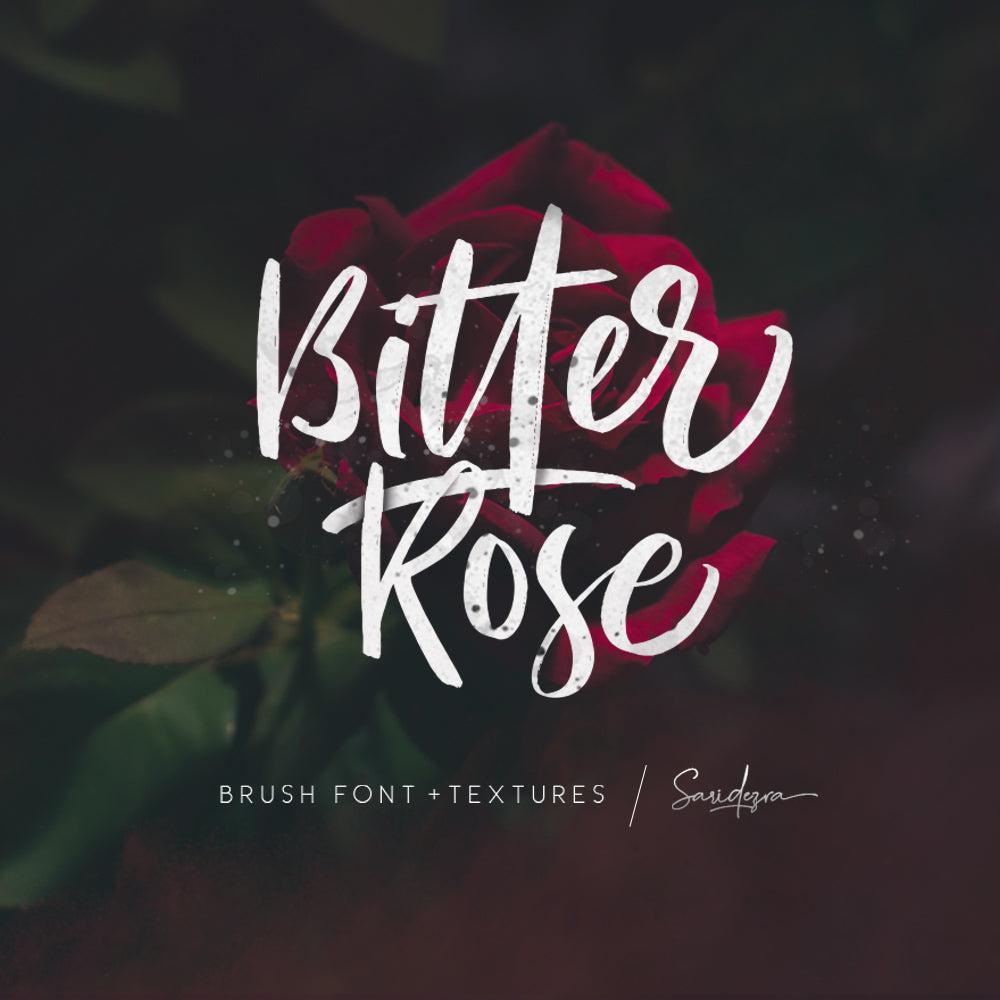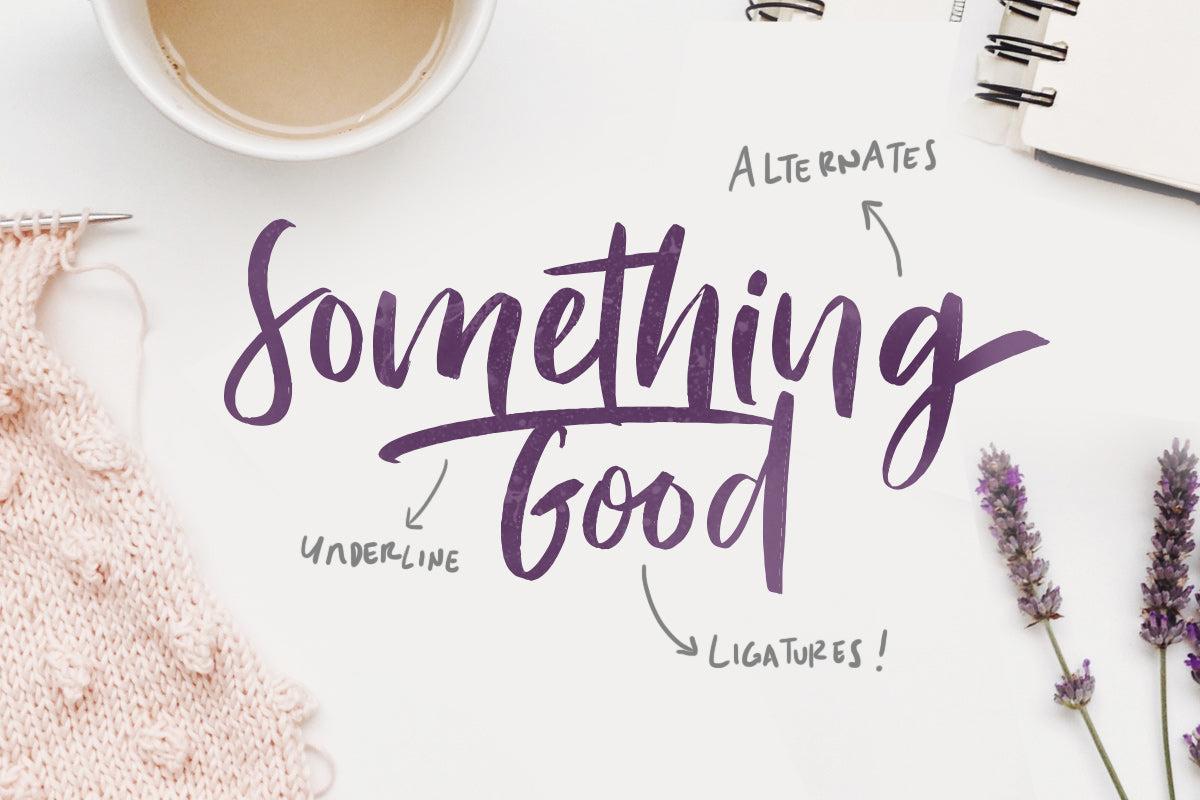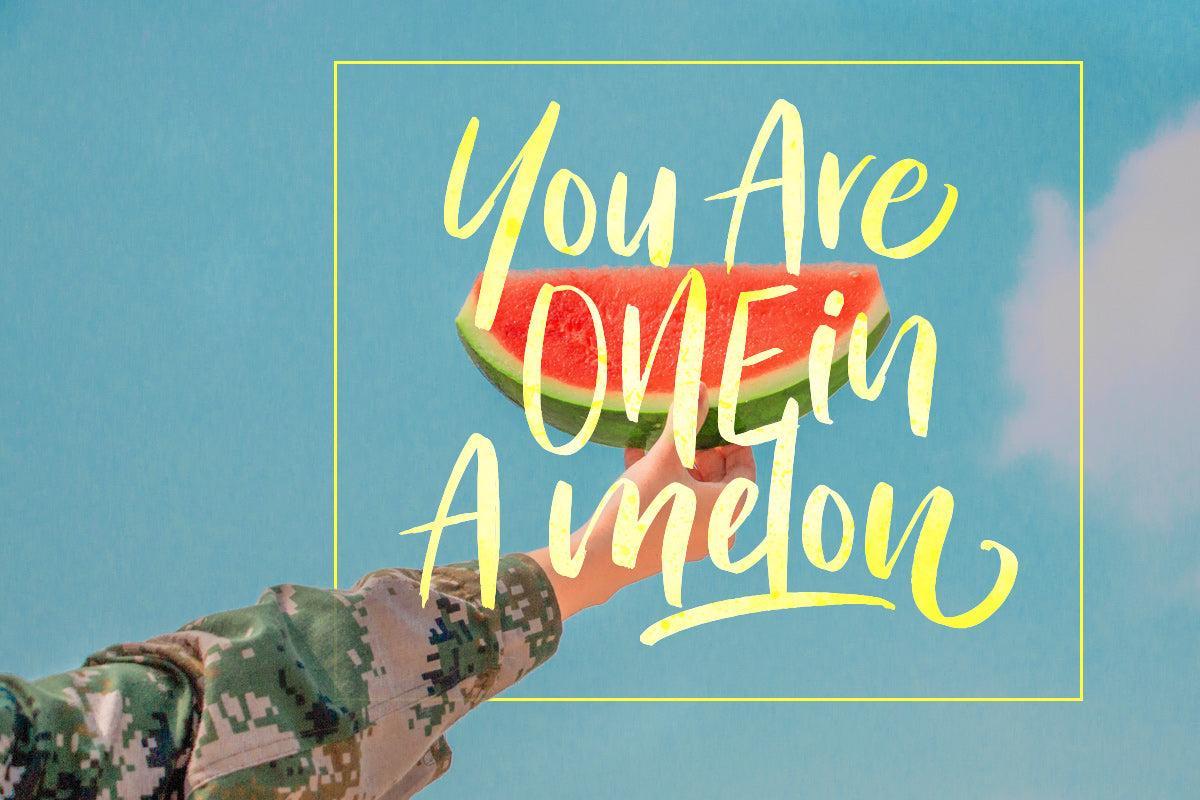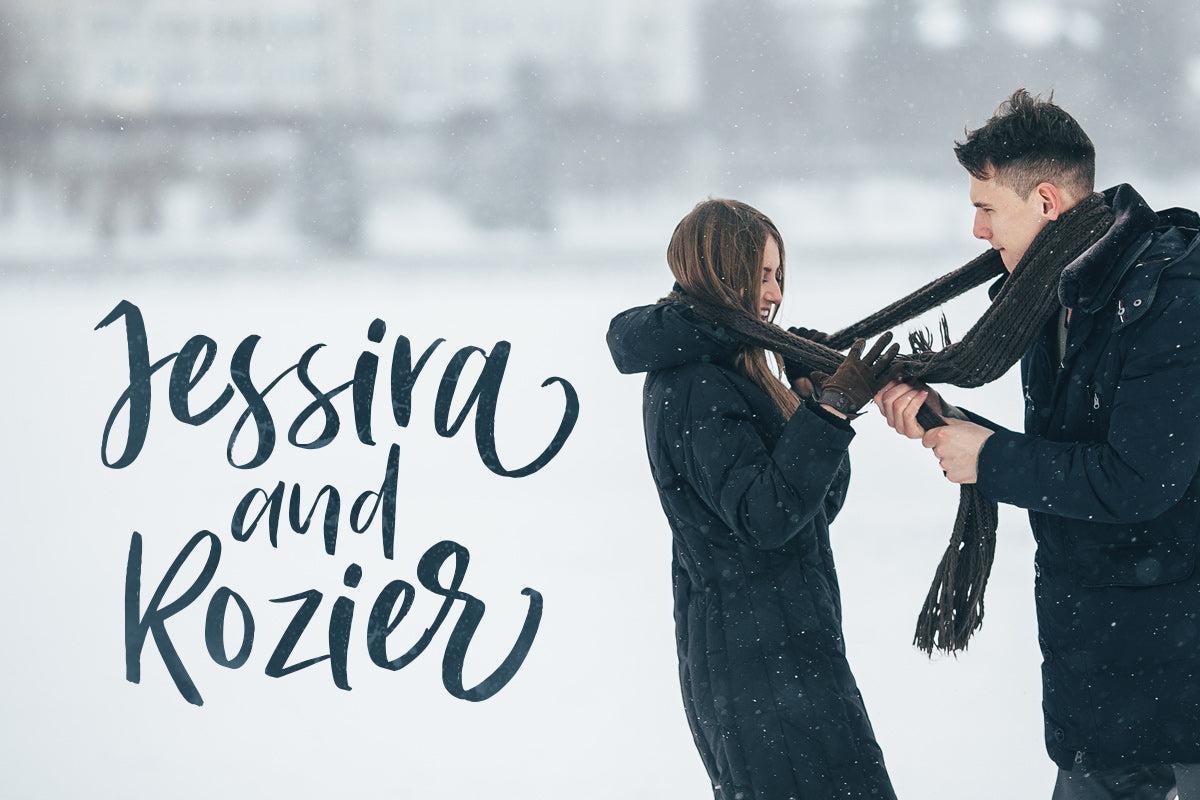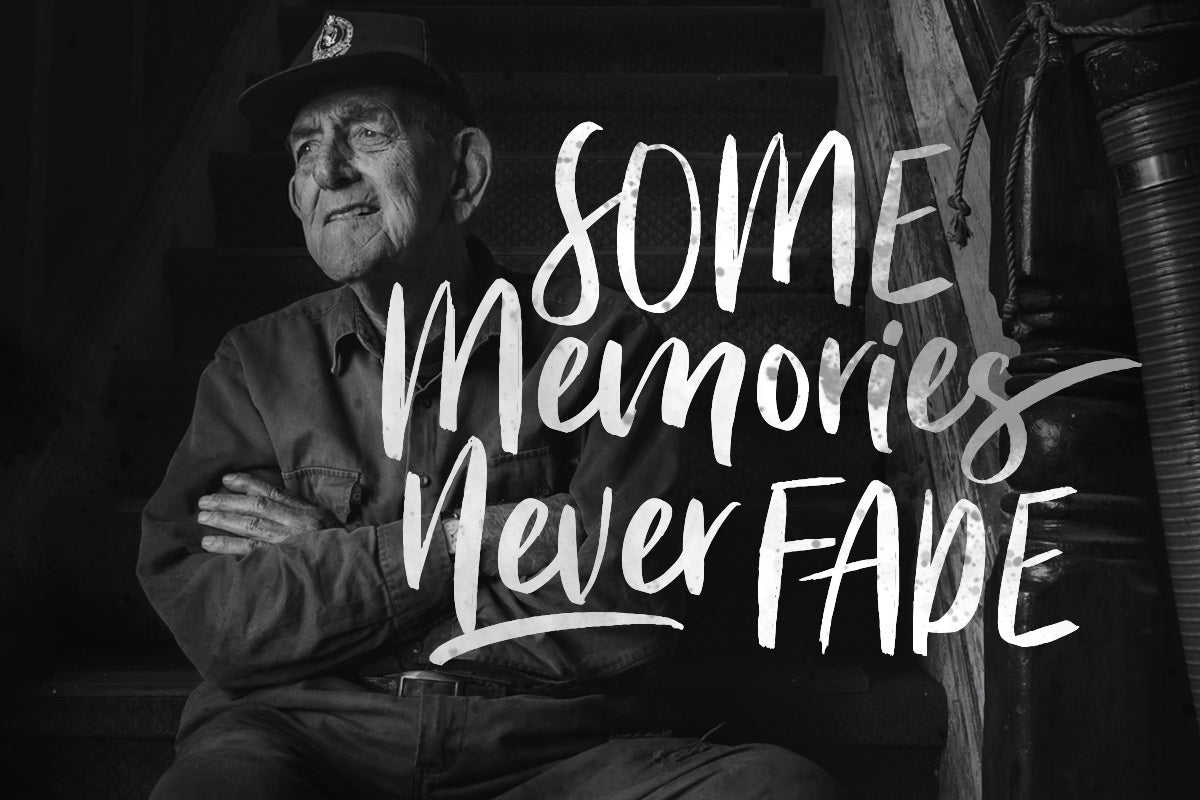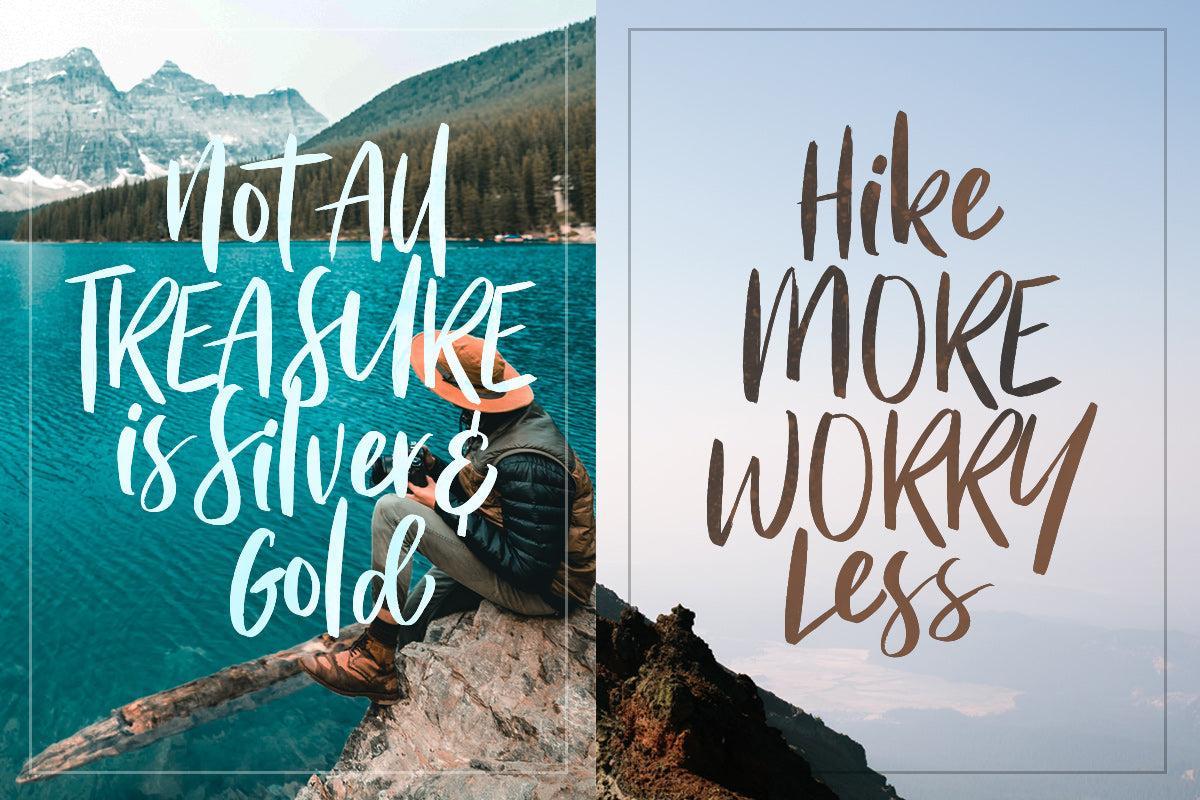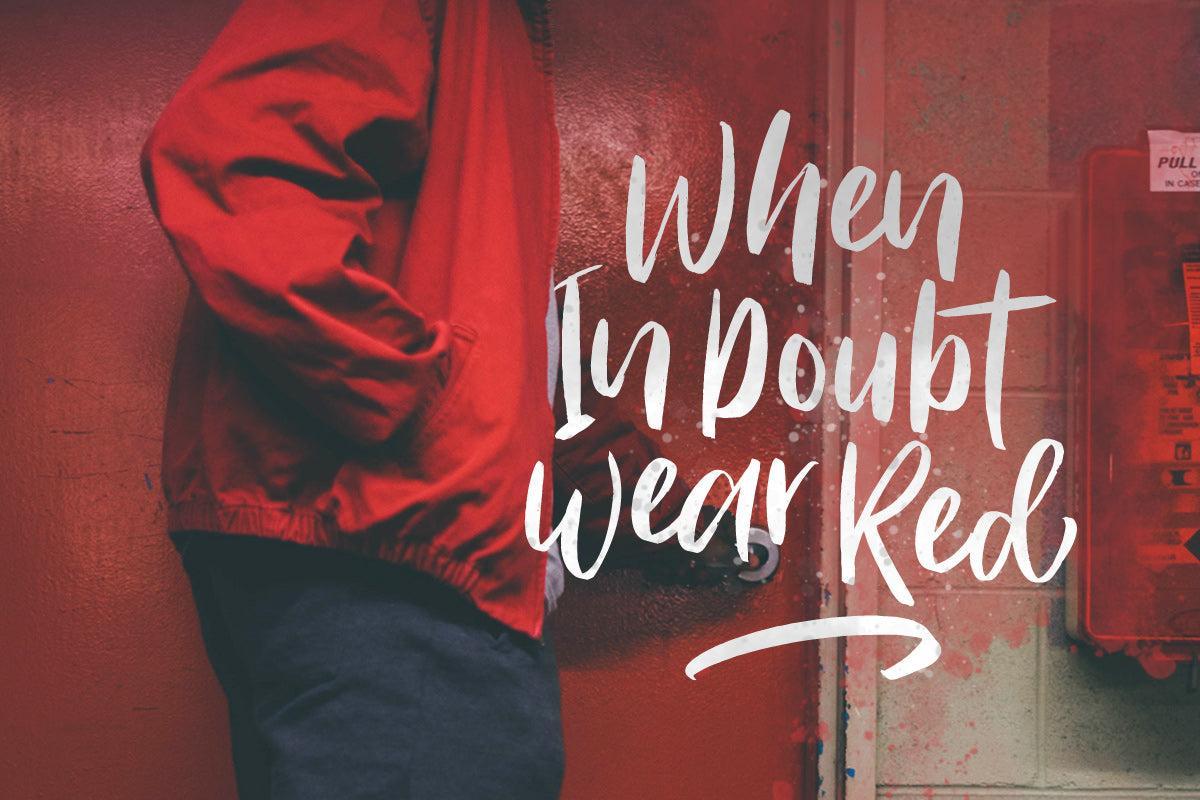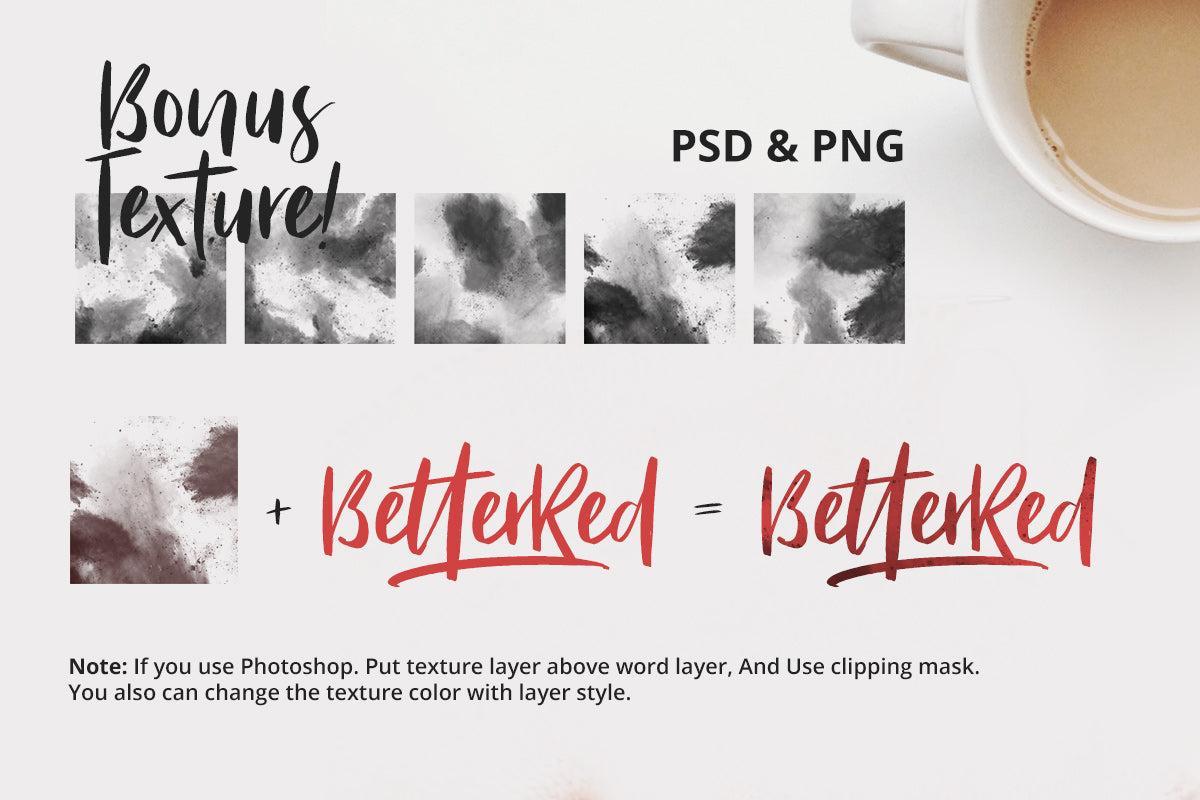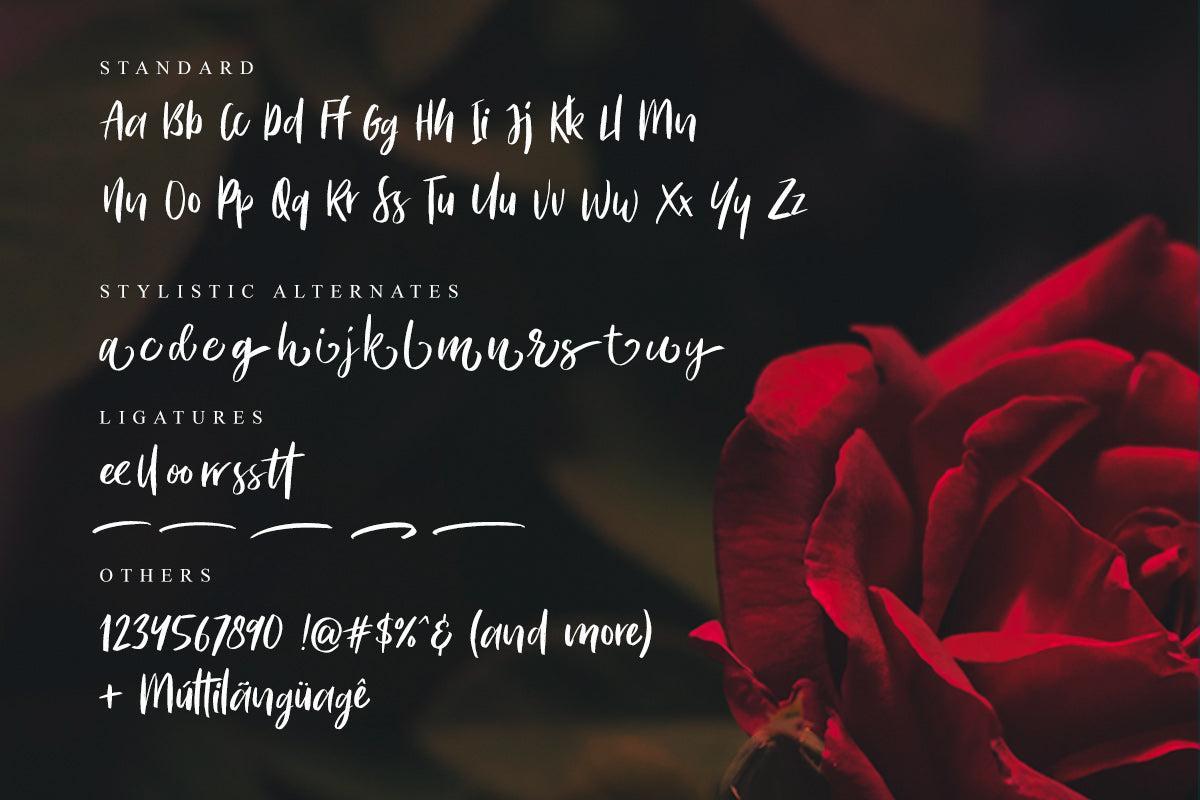
Bitter Rose - Brush Font (+TEXTURES)
Bitter Rose is a brush font that includes stylistic alternates and swashes, allowing for customized signatures, quotes, or logo designs. It supports multiple languages and is available in OTF and TTF formats, with PUA compatibility.